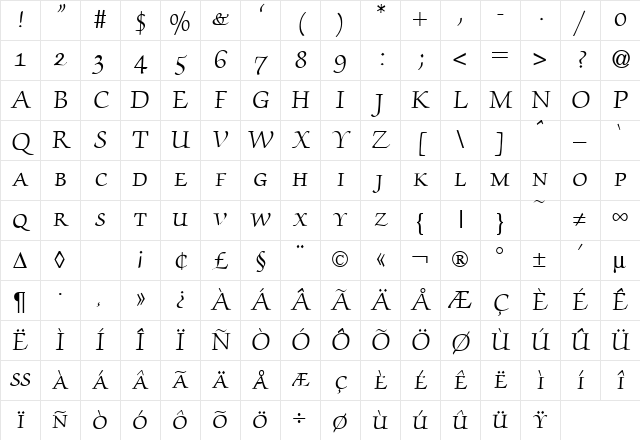
Complete ZabriskieScriptSmc DB Regular glyph index. Displaying only characters natively supported by ZabriskieScriptSmc DB Regular font.
ZabriskieScriptSmc DB flows with the natural rhythm of handwritten lettering, making it ideal for designs that call for warmth and personal expression.